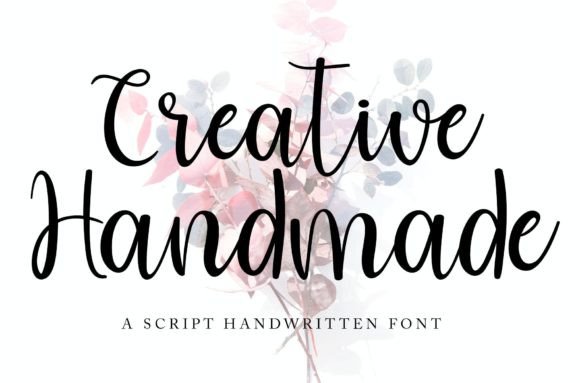
Welcome to the world of Creative Handmade, an enthralling handwritten script font that adds an authentic touch to your creative endeavors. As you embark on your design journey, let this font be your muse, transforming your words into compelling visual expressions. The captivating boldness of Creative Handmade ensures that your messages leave a lasting impression on your audience. With its solid foundation and refined curves, this font commands attention without overpowering the beauty of your designs.
Embark on a creative adventure where fun meets professionalism, where your ideas flow effortlessly onto the canvas of your designs. Creative Handmade becomes an extension of your artistic vision, lending a distinct charm and personality to your projects. Whether you're designing a captivating website, creating an unforgettable blog post, or crafting a professional marketing campaign, this font complements your creativity seamlessly.
Unleash your individuality and express yourself with the boundless opportunities that Creative Handmade offers. Dive into a world of endless possibilities, where you can effortlessly turn your designs into captivating masterpieces. Be it personal branding, social media presence, or captivating marketing materials, this font will enhance your visual appeal and leave a lasting impact.
Delve into the boundless possibilities of Creative Handmade and let your imagination soar. Let your designs tell stories, evoke emotions, and engage your audience. Join the design revolution and embrace a new era of creative expression with Creative Handmade.